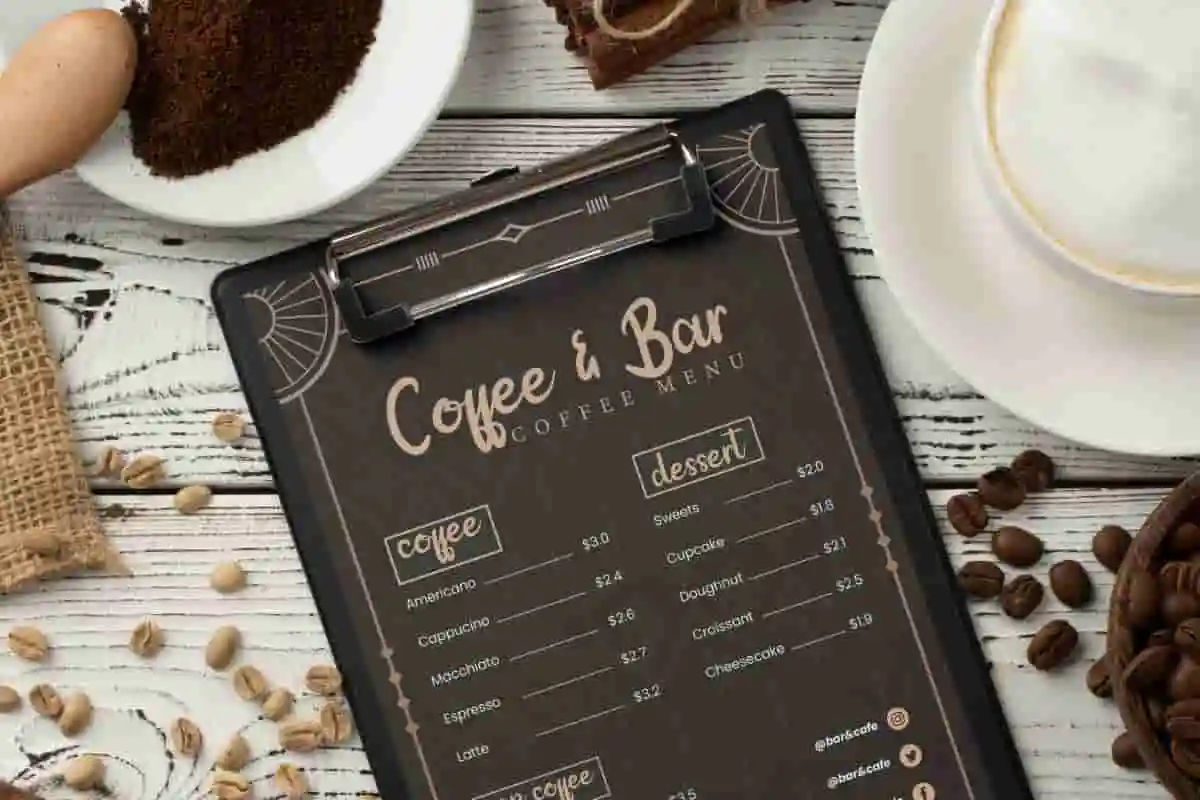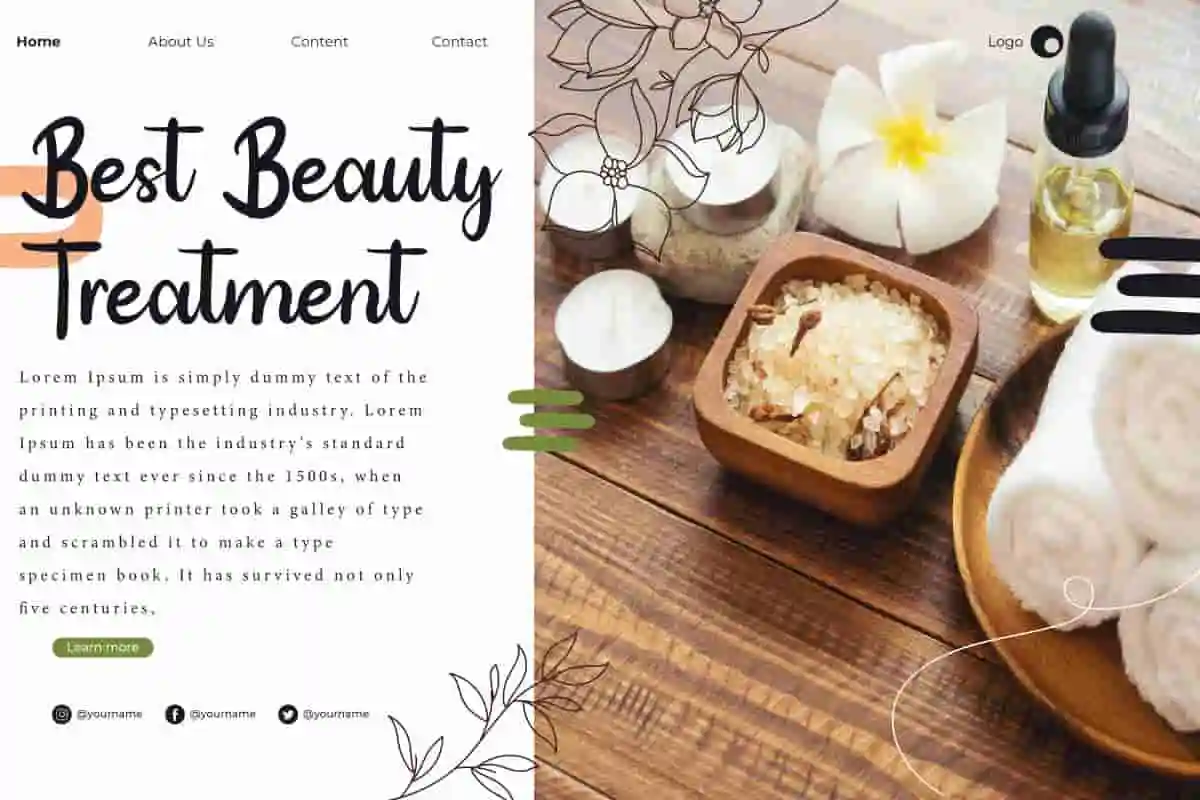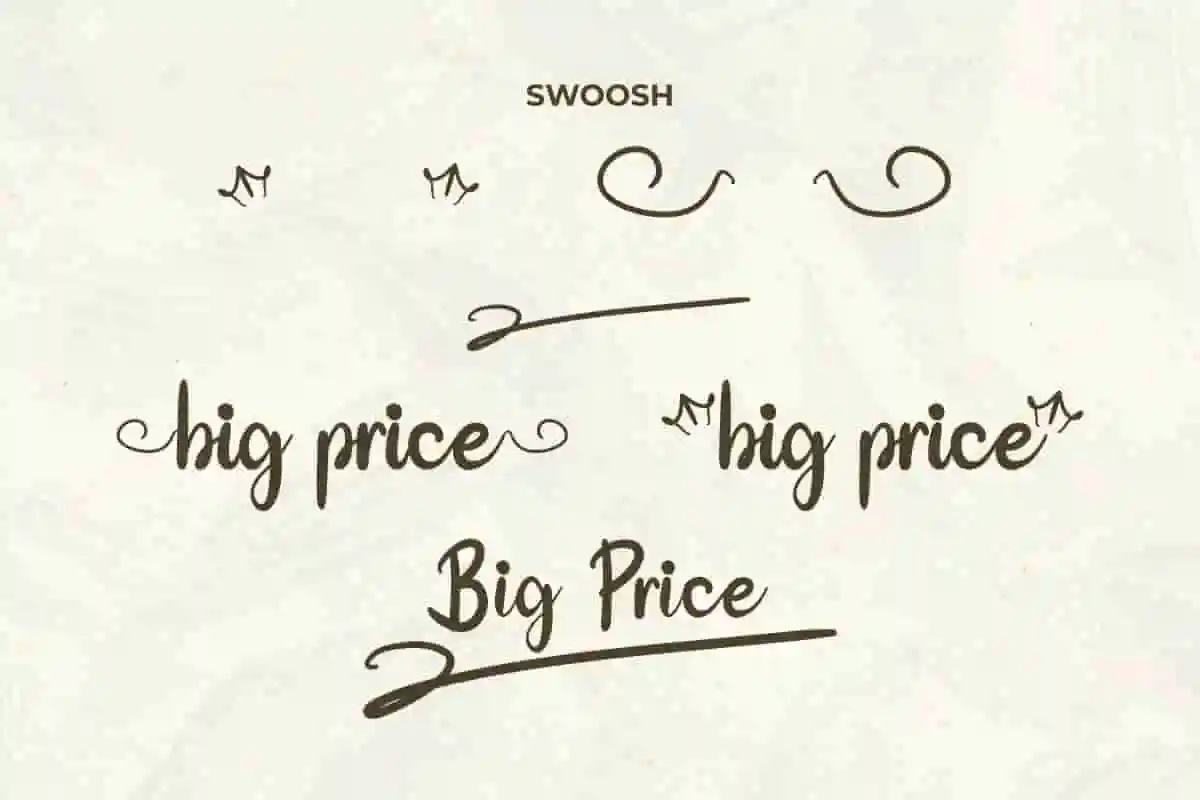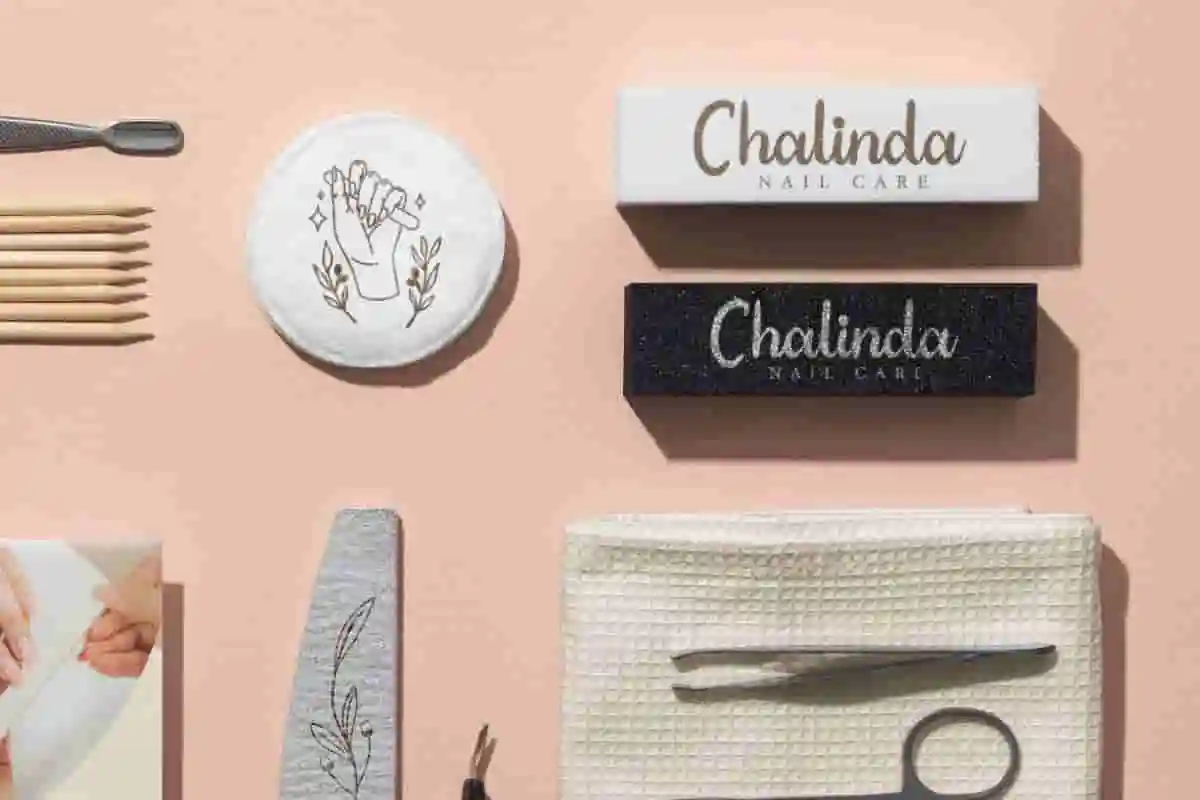
Big Price Font
Big Price Font is a sweet thick calligraphy script font. This font will be perfect for bridal boutique, coffee bar, flyer, label, name tag, premium chocolate products, signage, skincare, spa, website, and much more.
Big Price Font is a bold classic calligraphy font with a luxurious look. It was inspired by a chocolate product brand which made this typography have a thicker and sweeter brush shape on one side. It is suitable for any industry, such as boutique, café, chocolate product, event organizer, florist, furniture, jewelry, printing, publishing, restaurant, skincare, spa salon, tailor, writer, and many more.
Big Price Font is carefully crafted to creating a flawless look. As the name suggests, the large price is worth the quality of the fonts you get. This font will be perfect for any project, such as brand logo, catalog, cover, embroidery design, invitation, label, menu sheet, packaging design, quote, screen print, signage, stationery, title, website, and other projects that require a sweet look.
Big Price Font comes with a full set of Uppercase and Lowercase Basic Characters, Number, a large range of Punctuation and Symbol. It also equipped with Swoosh characters which will enhance the artistic value of the font. It supports multilingual characters and ready to use both on Windows machine or Mac with simple installations. It’s tested to work well in the Adobe Apps (Illustrator, Adobe InDesign, Adobe Photoshop) CorelDraw, and others. PUA Encode Characters means you can access all the characters easily – Fully accessible without additional design software.